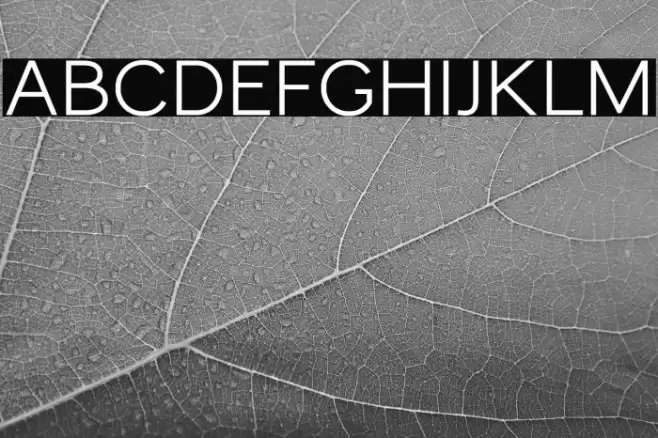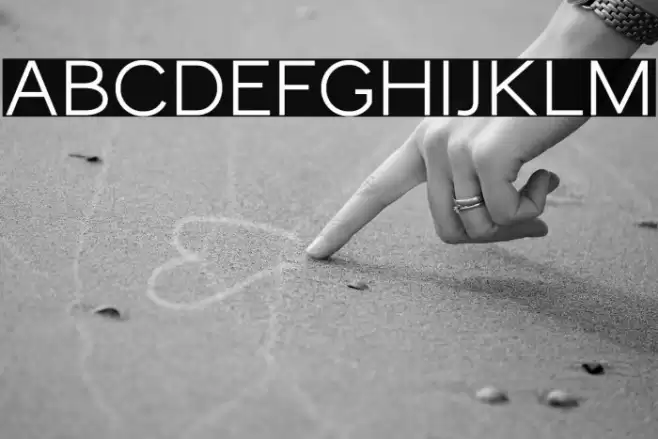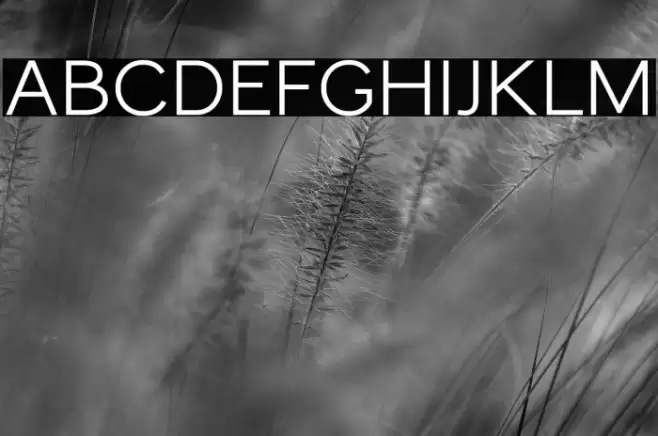
MonocoleFree-SemiBold Font
MonocoleFree-SemiBold Description
This font features a clean and modern sans-serif design, characterized by its geometric shapes and uniform stroke widths. The uppercase letters are bold and well-defined, providing a strong visual presence. The font maintains a consistent height across all characters, contributing to a balanced and orderly appearance. The absence of serifs and the straightforward design make it highly legible and versatile for various applications. The font's simplicity and clarity are ideal for contemporary design projects, where readability and a sleek aesthetic are prioritized.
A modern, geometric sans-serif font with bold, uniform strokes from Uncategorized fonts.